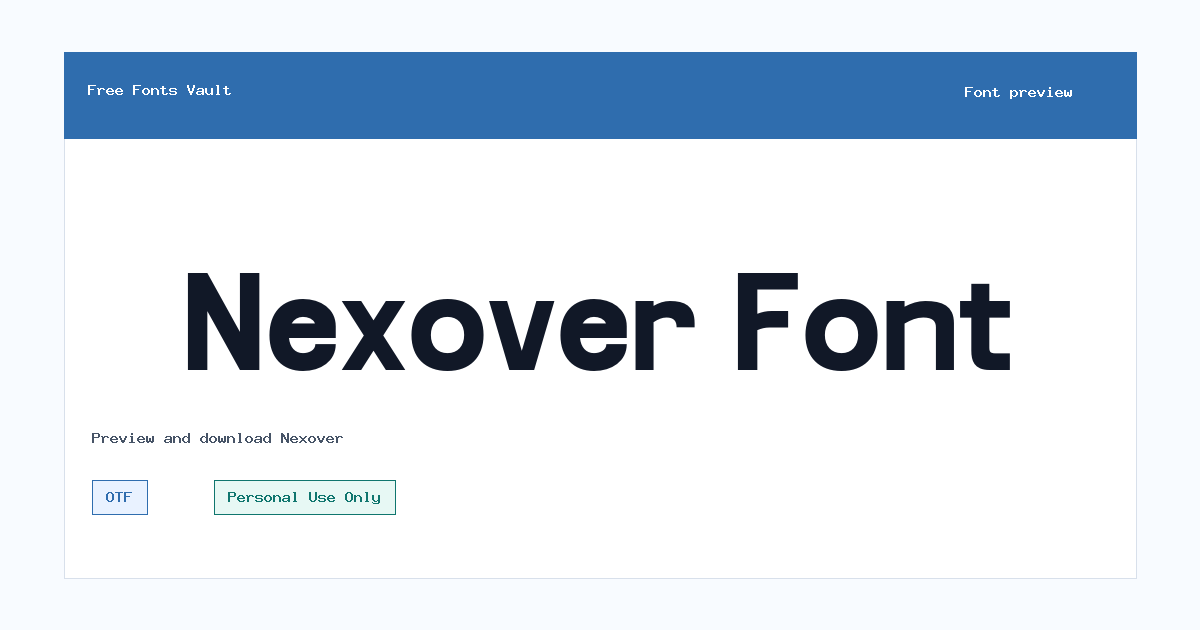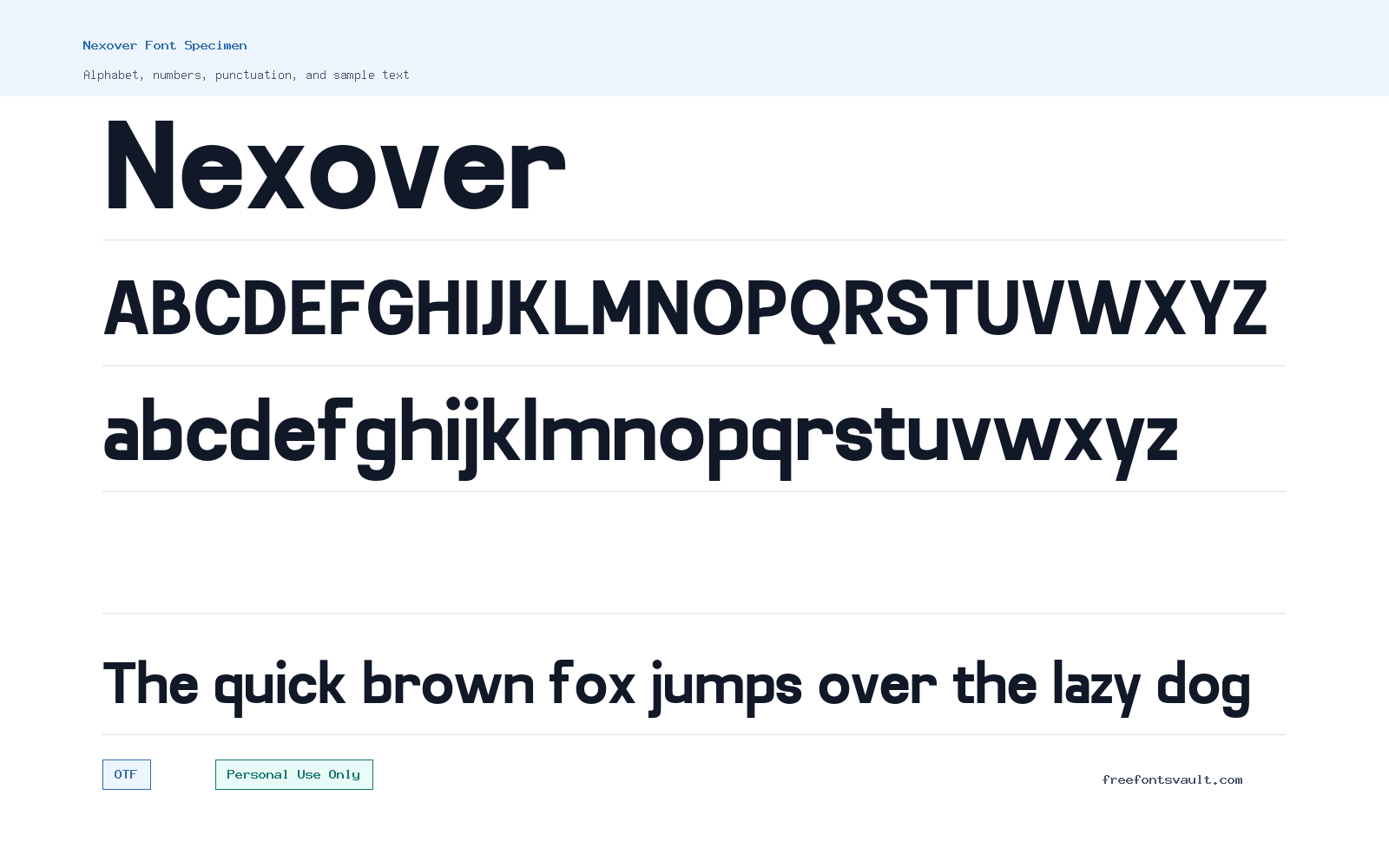
Nexover
- Designer Ragamkata Studio
Nexover is a bold sans serif demo font with a clean, modern look and strong headline weight. Its regular style uses heavy strokes, rounded curves, and tight, confident shapes, making it useful when you need short text to feel clear and direct. The font is marked Personal Use Only, so treat it as a non-commercial download unless you confirm other rights from the creator.
About Nexover Font
Nexover works best as a display font rather than a long-reading text face. In the preview, the uppercase letters look wide and solid, while the lowercase set keeps a compact, geometric feel. The bowls are rounded, the spacing is fairly close, and letters such as a, g, e, and o have a sturdy sans serif structure. That gives the font a clean digital tone without needing decorative details. It can suit names, labels, social graphics, poster lines, presentation covers, and other places where one short phrase needs visual weight.
Because Nexover is bold, it is easiest to read at medium and large sizes. Use the preview box to test the exact words you plan to design with, especially if your text includes many narrow letters, repeated lowercase characters, or punctuation. For longer descriptions, pair Nexover with a lighter neutral sans serif or a simple serif body font so the page does not feel too heavy. Keep line lengths short, add enough spacing around the text, and avoid using it for dense paragraphs where the heavy weight may reduce comfort.
- Bold sans serif letterforms with rounded curves and a clean regular style
- Posters, cover titles, thumbnails, and social media headers that need strong short text
- Logotype drafts, personal branding mockups, labels, and presentation title slides for non-commercial use
Nexover is credited to Ragamkata Studio. No foundry name or designer website is listed in the available font details.
What kind of font is Nexover?
Nexover is a bold sans serif font with clean, rounded letterforms. It is better suited to display text than long paragraphs.
How should I pair Nexover with other fonts?
Pair it with a simpler, lighter sans serif or a readable serif for body text. Let Nexover handle the title or main wordmark so the design stays balanced.